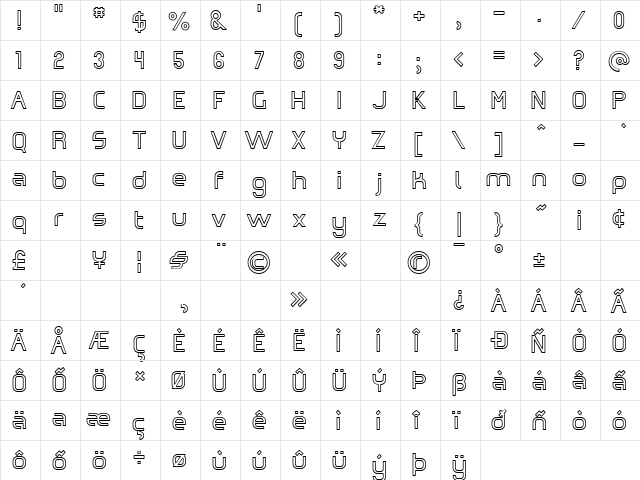
Omicron Zeta Hollow Regular
Design Context for Omicron Zeta Hollow Typeface
Omicron Zeta Hollow is a composed and adaptable typeface that performs quietly and consistently across a wide range of design contexts.